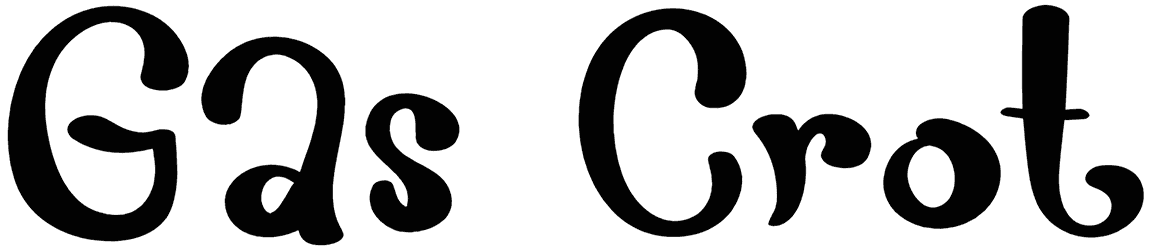
Gas Crot Font
When you’ve got something as quirky as the Gas Crot in your toolbox, it’s hard to run out of ideas. With this cartoon font, you can develop your ideas in the best possible way and add excitement and happiness. So if you’re looking for a tasty topping to spice up your kids’ posters, computer games, and toy packaging, dig RB for more similar options.
Gas Crot is a playful and friendly display font. Whether you are using it for cartoon-related designs, children’s games, quotes, titles, brand names, book covers, posters, or just any creation that requires a touch of beauty, this font is a great choice.